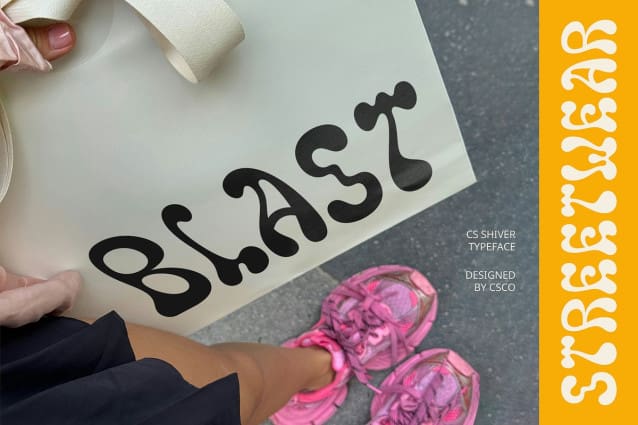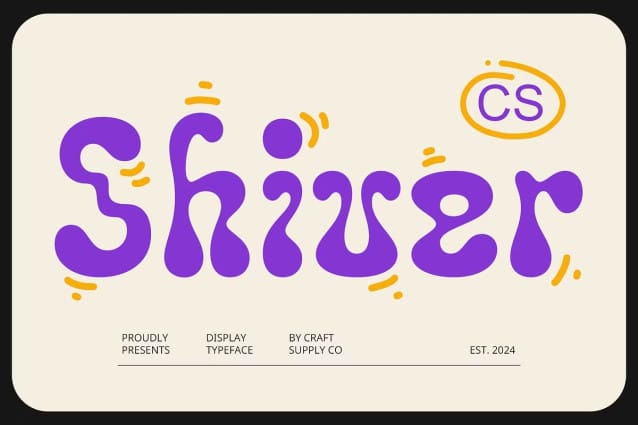
CS Shiver Font
CS Shiver Font is a psychedelic display font defined by its irregular, warped, and curvaceous letterforms. The design radiates a sense of spontaneity and creativity, with every letter seeming to flow and shift in unpredictable directions. This fluidity captures the essence of psychedelic art, where boundaries are pushed, and expression is limitless.
Vibrant and Energetic Appeal With its bold, eye-catching look, CS Shiver is perfect for designs that demand attention. The font’s playful curves and dynamic shapes create a vibrant atmosphere, bringing an energetic and lively touch to any project. The lively vibe is enhanced by its striking visual form, making it ideal for artistic and creative endeavors.
Ideal for Bold, Artistic Creations Whether it’s for music posters, festival promotions, album covers, or experimental designs, CS Shiver injects personality and vibrance into your work. Its distinctive, psychedelic flair ensures it stands out in creative spaces, making it perfect for projects that seek to break the mold and embrace bold, visual expression. This font adds a sense of joy, freedom, and artistic energy, elevating the impact of any design.